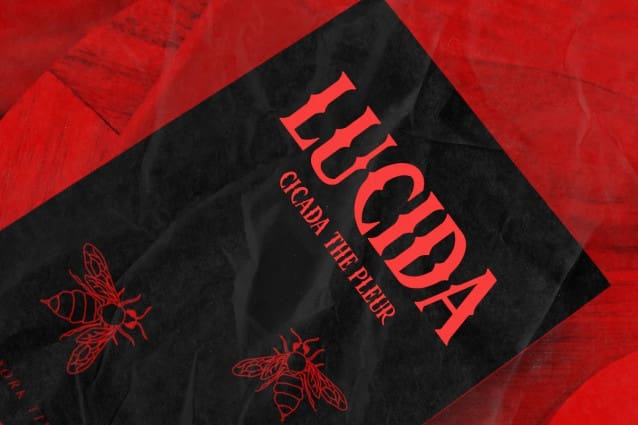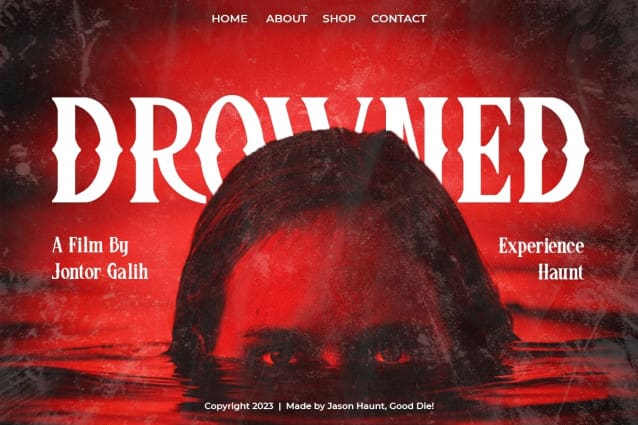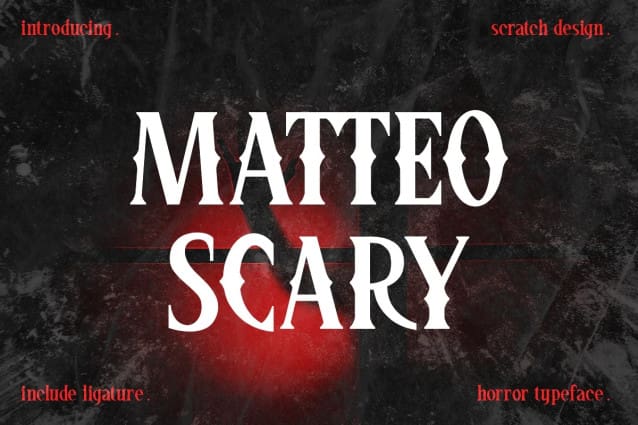
Matteo Scary Font
Matteo Scary Font is a horror and creepy font inspired by classic horror movie posters. It gives us the spirit of horror, spooky, frightening and suitable for poster movies, especially Halloween-themed, horror or thriller. This font is perfect also for branding, book cover, magazine header, and others which has horror or spooky vibes.